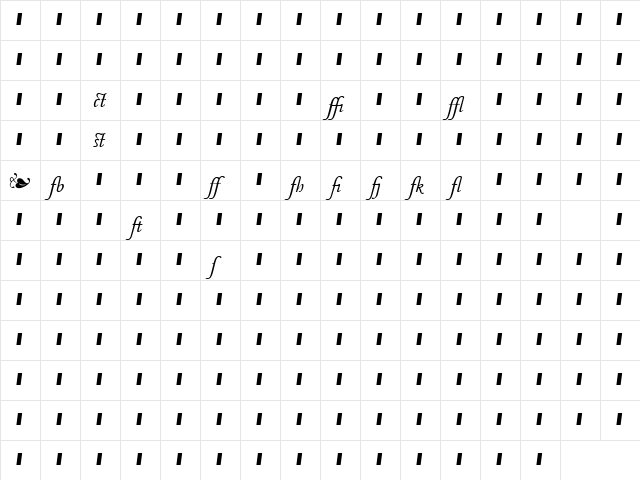
MonteverdiLigatures Italic
Design Context for MonteverdiLigatures Typeface
MonteverdiLigatures offers clean, dependable letterforms without strong stylistic allegiance, making it a practical choice for designers who need flexibility. Its italic angle brings a sense of urgency and motion to the letterforms.